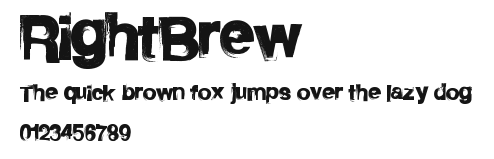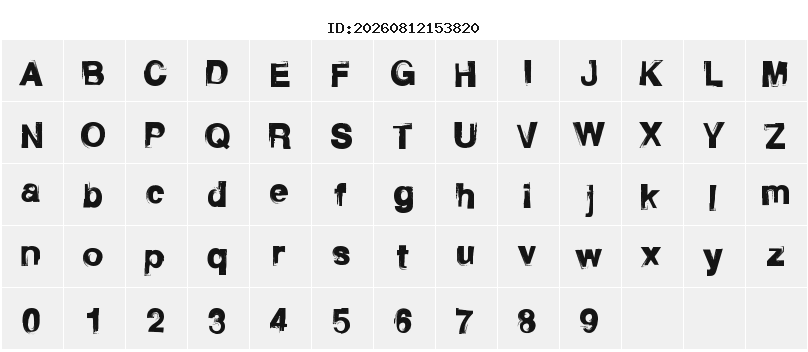
• Font Name: RightBrew
• Designer: Xerographer Fonts Max Infeld
• Description: Made at Xerographer Studios in Portland, OR
RightBrew.ttf is a modern, elegant sans-serif font designed for ultimate readability and visual harmony. Perfect for branding, headlines, web design, and print materials.